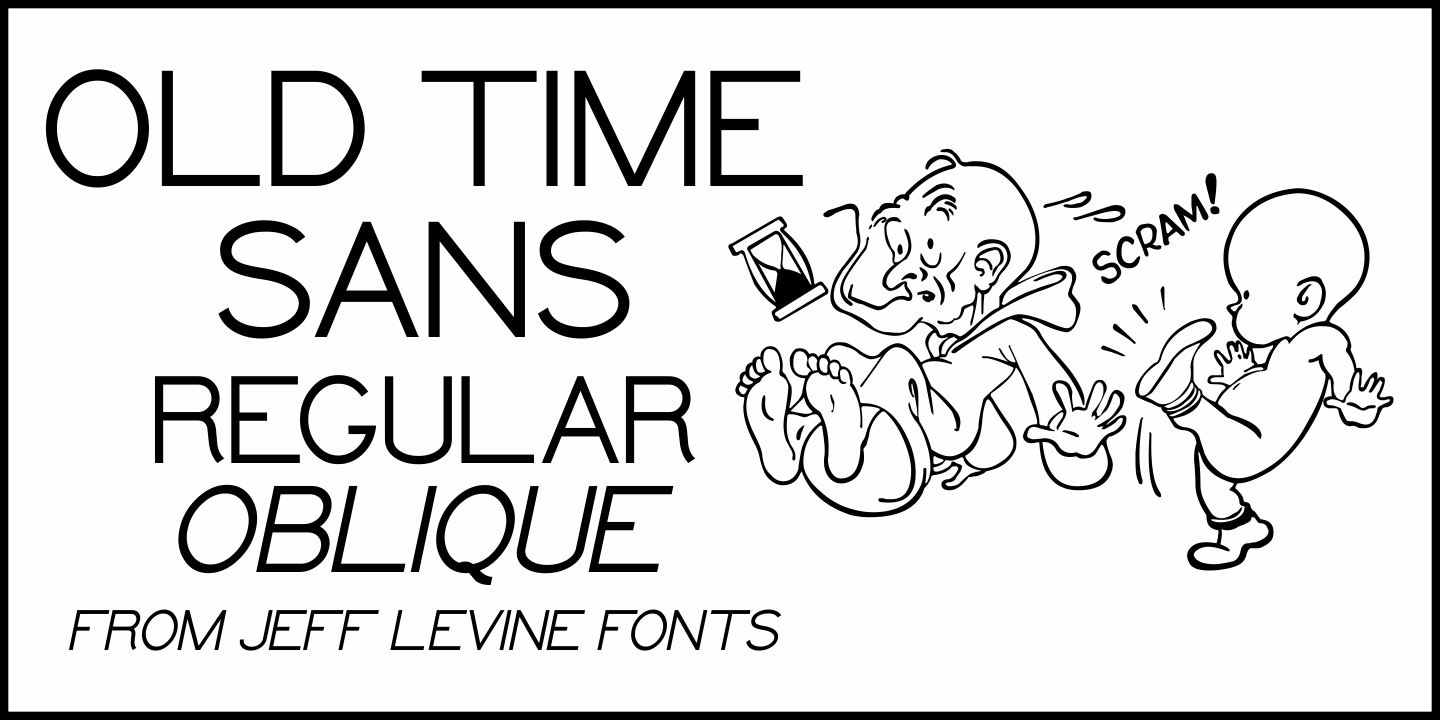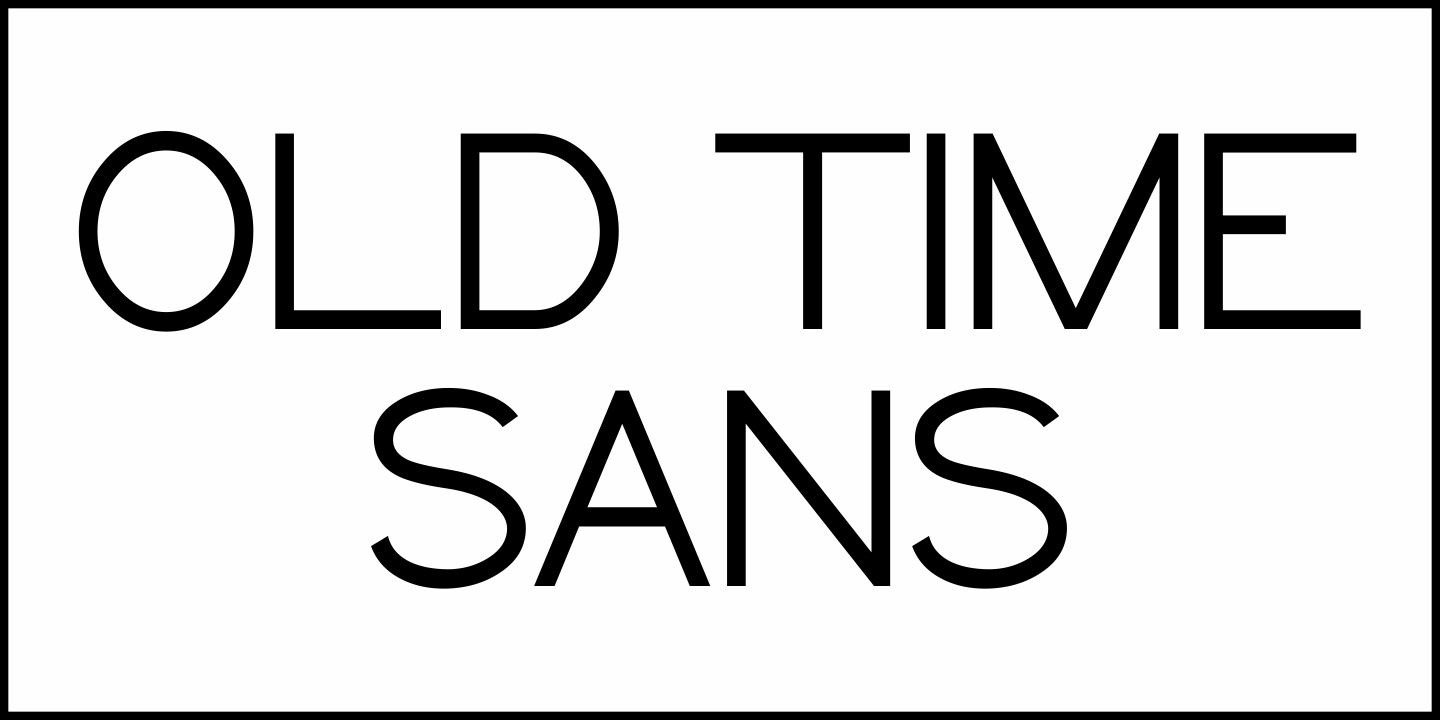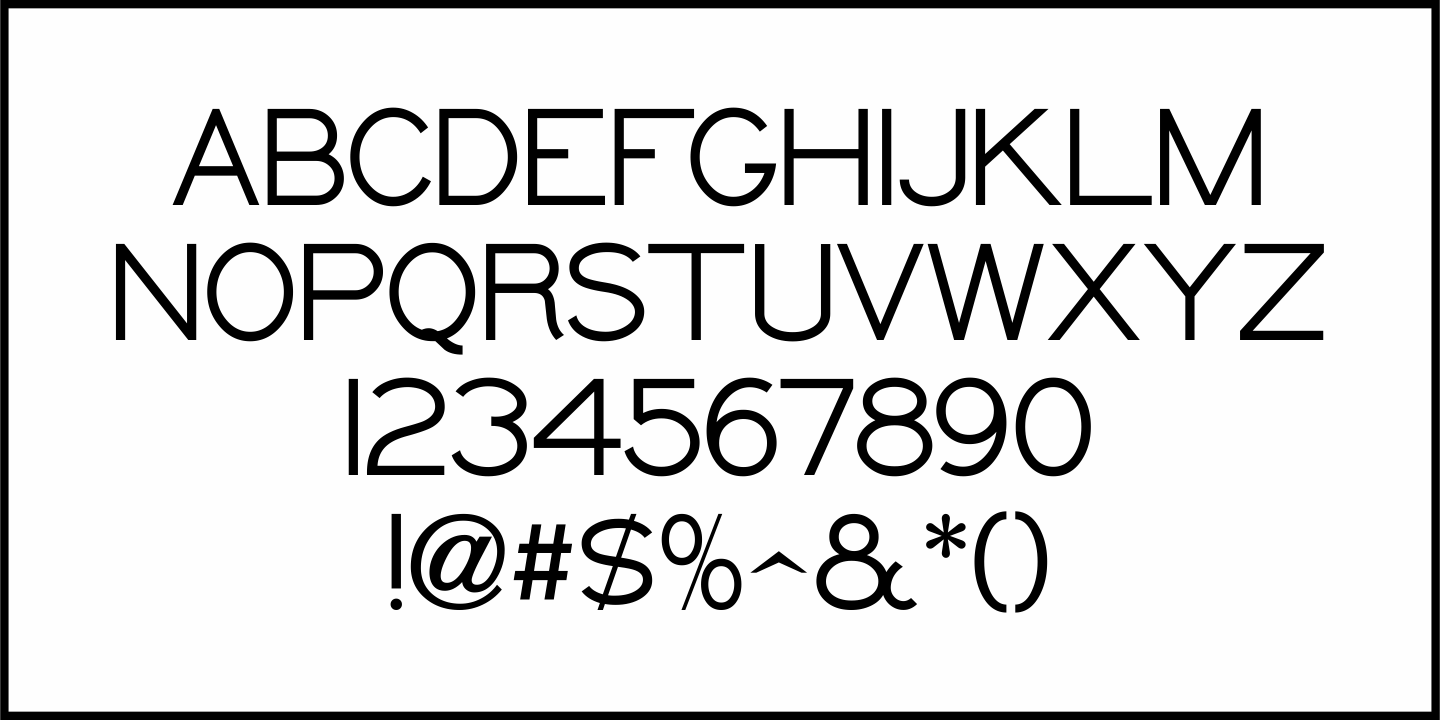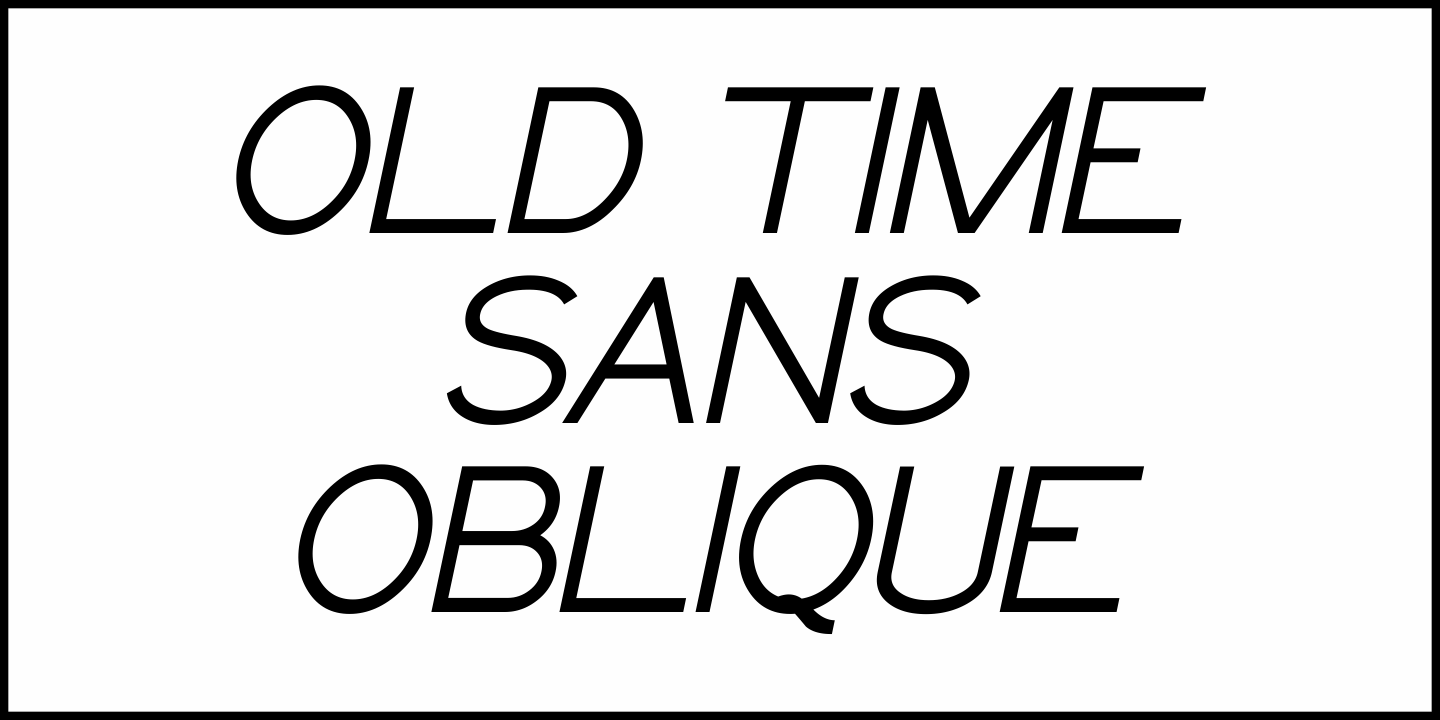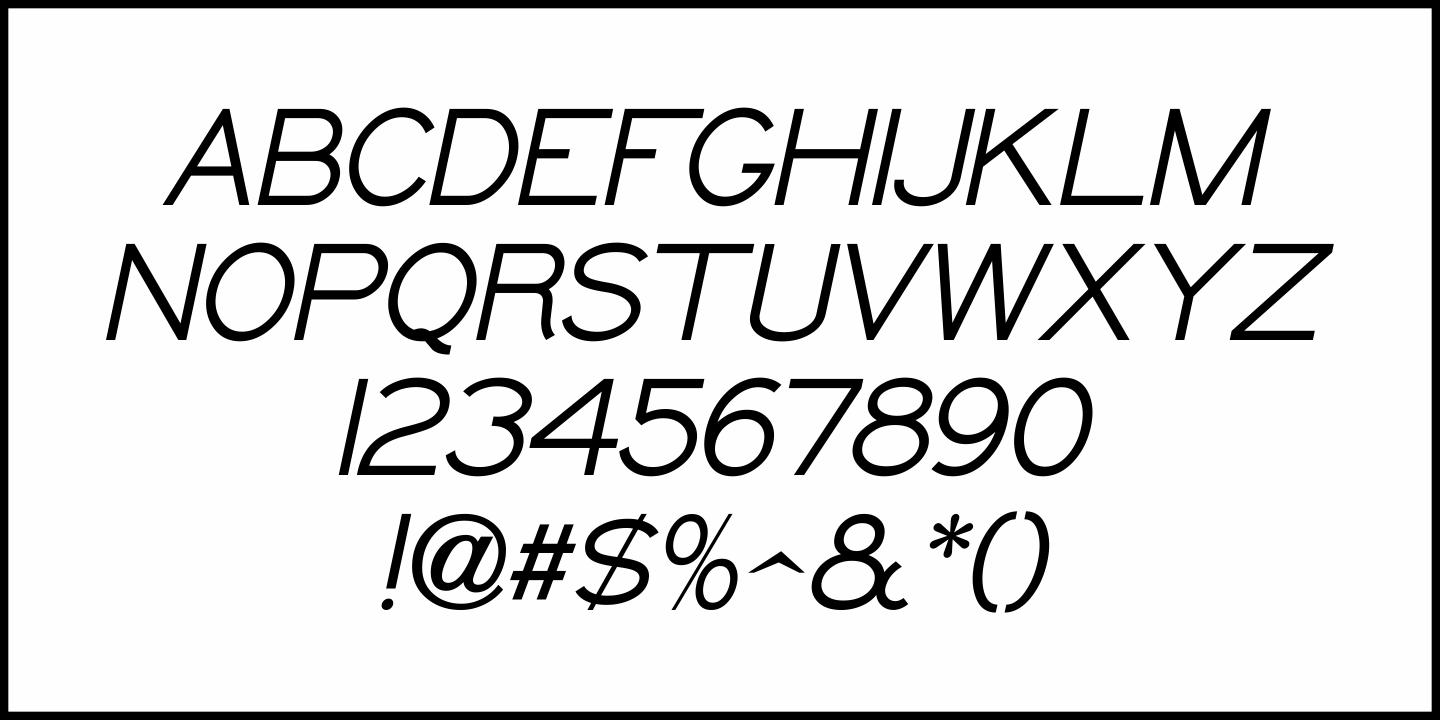
Old Time Sans
A thin sans serif design found in the 1902 book "Lettering Plates" by Charles L. Adams inspired Old Time Sans JNL, which is available in both regular and oblique versions.
Old Time Sans by Jeff Levine Fonts